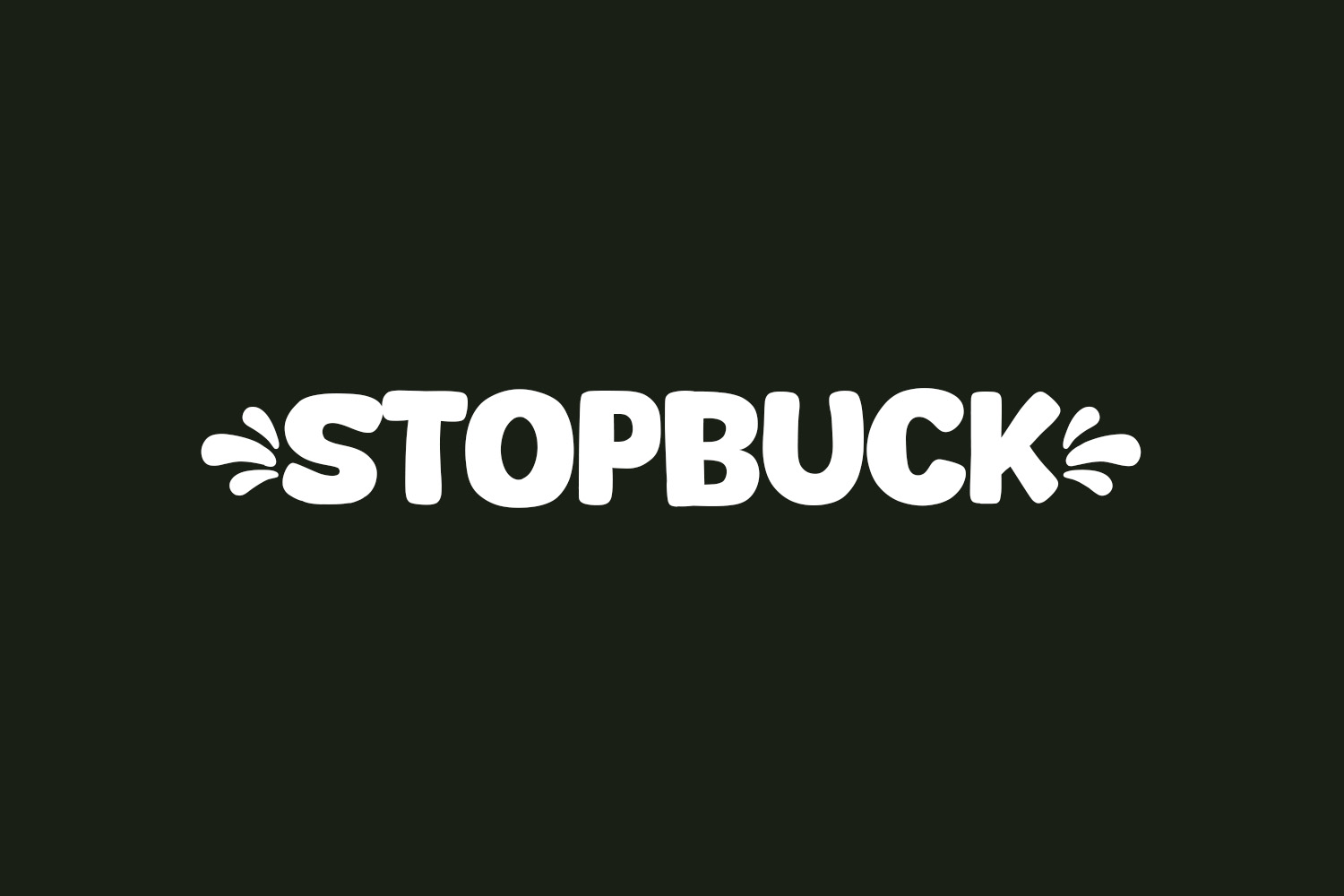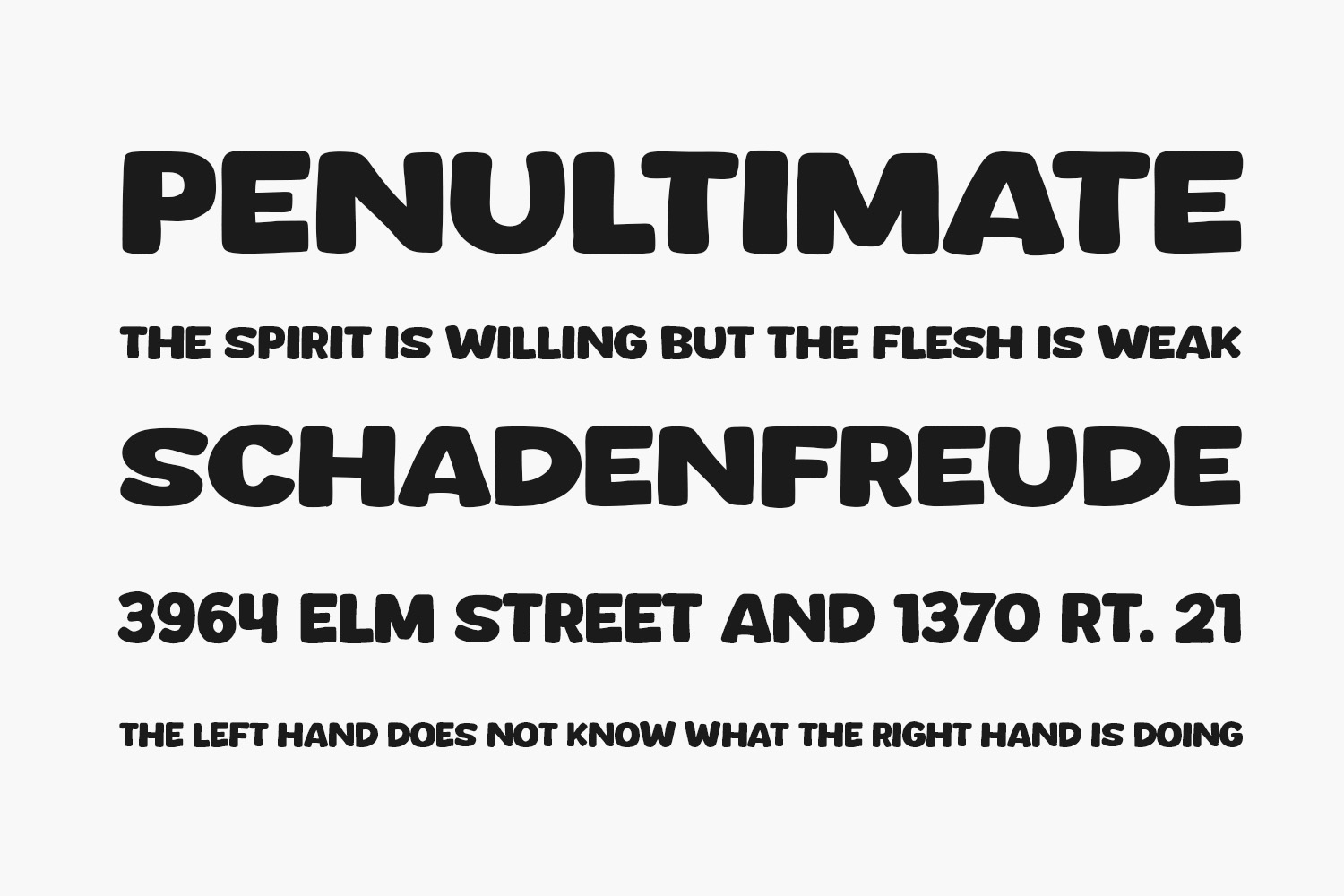
Introducing Stopbuck Free Font, a contemporary and chic display font tailored for posters, logos, magazines, book covers, banners, and more! Acquire this exceptional font and infuse your designs with a touch of elegance. Its versatility seamlessly complements a vast array of projects, so incorporate it into your creative endeavors and witness how it effortlessly elevates their visual appeal. Stopbuck Free Font was designed by Khurasan and is free for personal or commercial use.